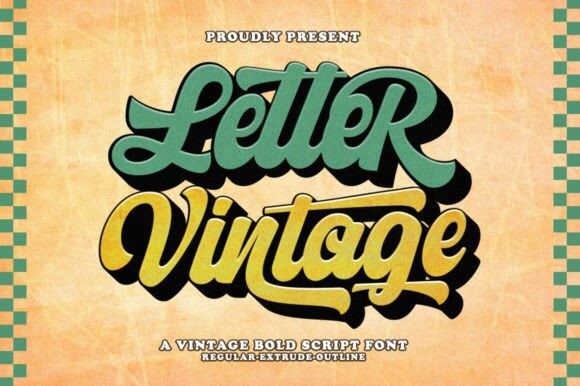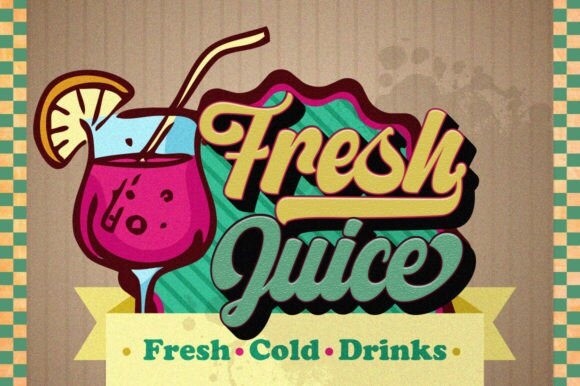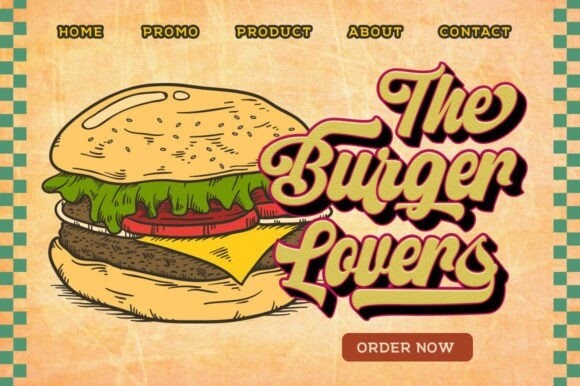
Letter Vintage Font
Letter Vintage Font is a vintage retro font. Inspired by retro typography and lettering from the 70s and 80s combined with a bold typographic style. This font is perfect for vintage and retro designs, badges, logos, t-shirts, posters, branding, packaging, signs, book covers, and more!